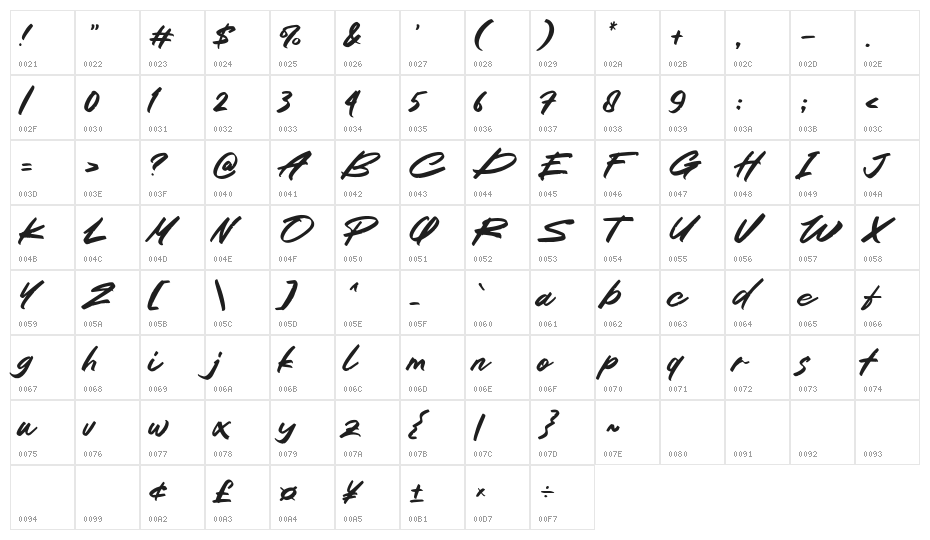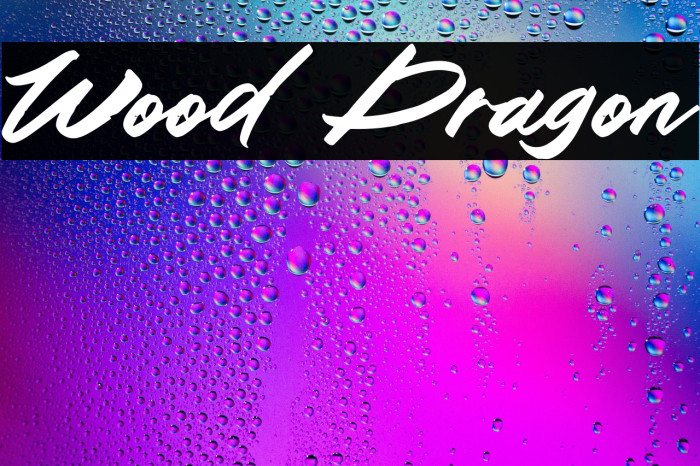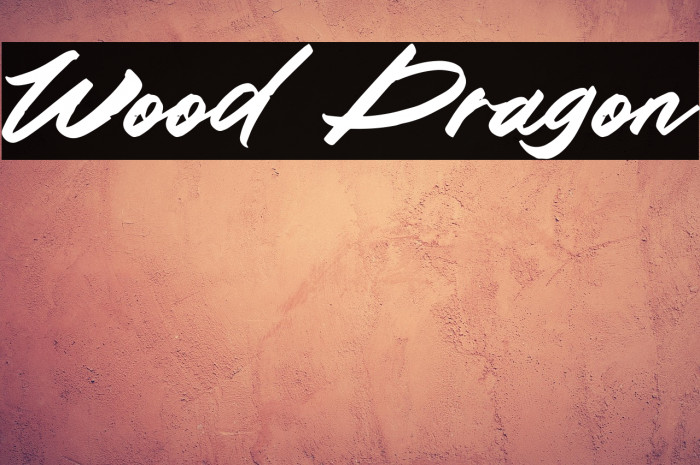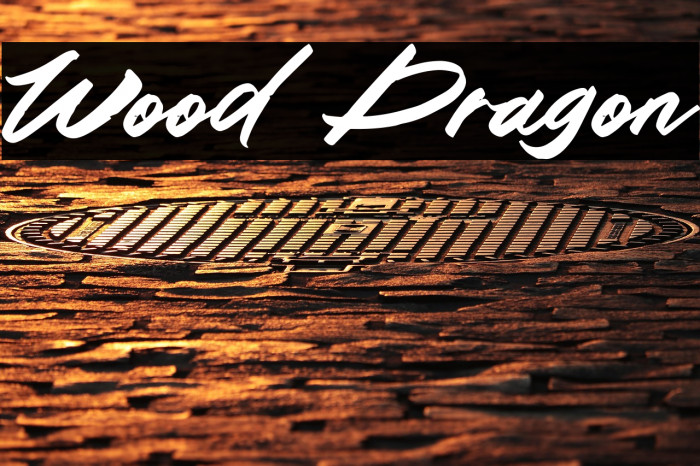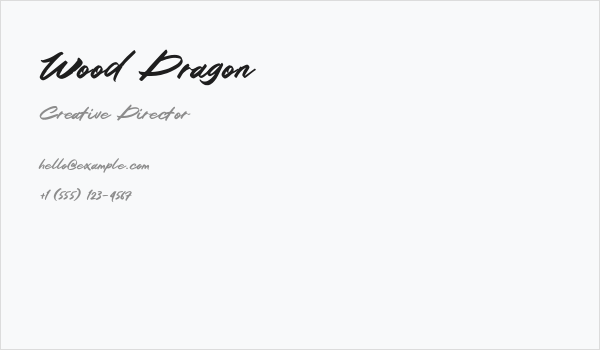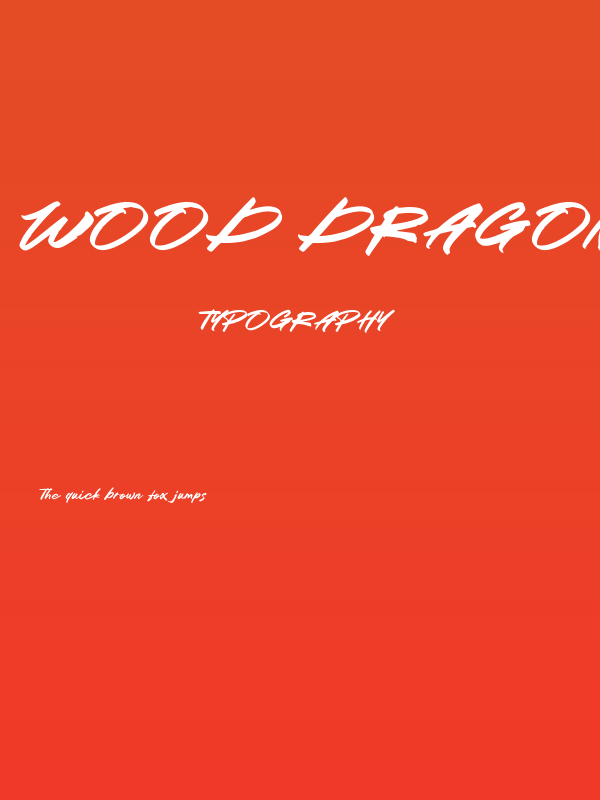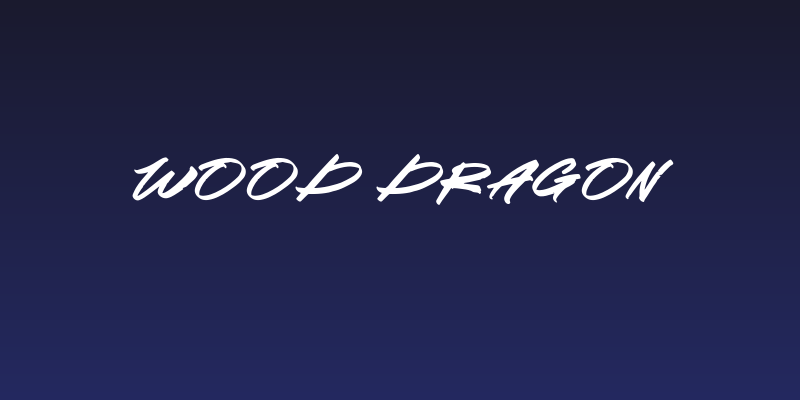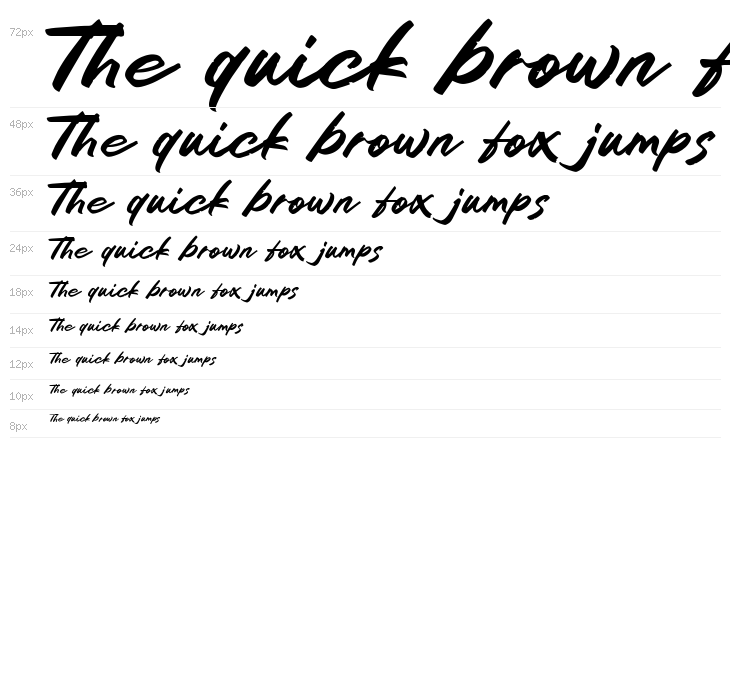
Wood Dragon Font
Wood Dragon Description
This font exudes a dynamic and energetic feel with its bold, handwritten style. The characters are crafted with a fluid motion, giving an impression of speed and spontaneity. The strokes are thick and expressive, with a slight slant that adds to its informal and lively character. This font is perfect for projects that require a personal touch or a sense of urgency and excitement. The uppercase and lowercase letters maintain a consistent style, while the numerals and special characters complement the overall aesthetic. The font's design is both modern and timeless, making it versatile for various creative applications.
| Proposed Projects | Ideal for branding, posters, social media graphics, and event invitations. |